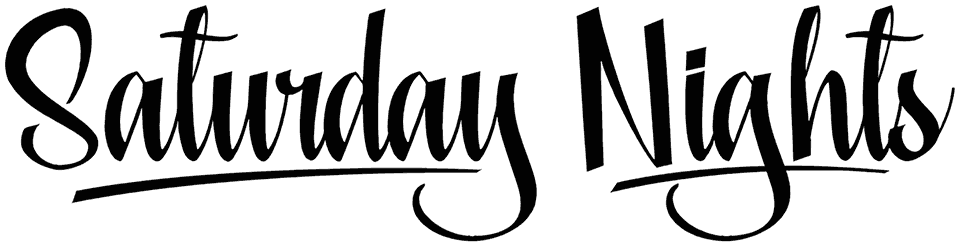
Saturday Nights Font
Here, we present an old-school handwriting-style font that can be utilized for one cursive hand-drawn typography that is adventurous and looks modern. Saturday Nights offers magnificent brush letters, but its letterforms don’t contain numbers, which will not lessen the value of this fantastic font. Books, scripts, fashions, clothing, and banners are places where you might want to give this font a try!